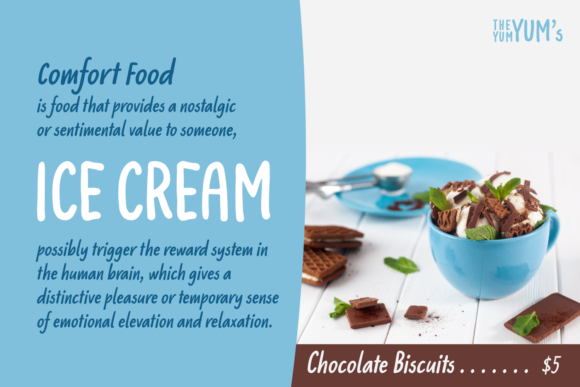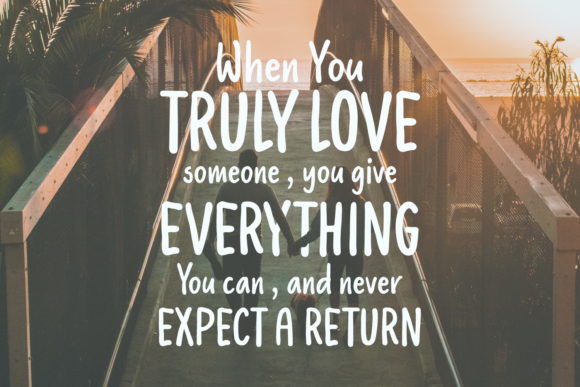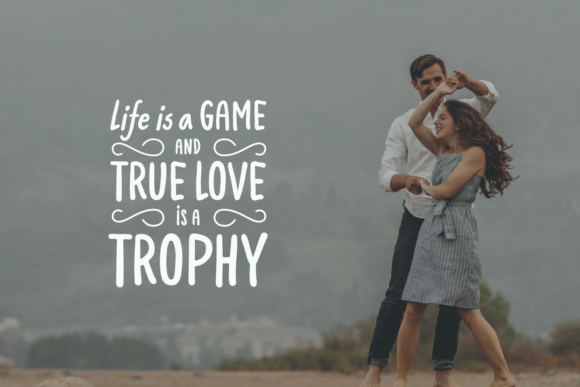
Introduction to Give Me a Hand Font
As a designer, have you ever found yourself stuck in a creative rut, struggling to find the perfect font to elevate your project? I’m sure we’ve all been there. But what if I told you that I’ve recently stumbled upon a game-changing script font that’s sure to breathe new life into your next design? Say hello to the exquisite Give Me a Hand Font – a true design treasure that’s about to become your new go-to companion.
This stunning font is more than just a pretty face; it’s a masterfully crafted design resource that effortlessly blends classic calligraphic influences with a fresh, contemporary feel. Whether you’re working on a high-quality branding project or a free download template, Give Me a Hand Font is the perfect addition to take your creative project to the next level.
With its transparent background and versatility, this font is an absolute must-have for designers looking to add a touch of sophistication to their designs. So, what are you waiting for? Get ready to fall in love with Give Me a Hand Font and discover a whole new world of design possibilities!
Key Features of Give Me a Hand Font
• High-quality design resource ideal for creative projects, including logos, graphics, and branding materials.
• Features a unique and playful design, making it perfect for adding a touch of whimsy to your creative project.
Honest Review: Give Me a Hand Font
I recently stumbled upon the Give Me a Hand Font, a free download that’s been making waves in the design community. As a designer, I was excited to dive in and see what it’s all about.
Here’s the good stuff: ✨ The Give Me a Hand Font is a high-quality design resource that’s perfect for any creative project. It’s clean, modern, and features a transparent background that makes it super versatile. I love that it’s free to download, making it an awesome option for designers on a budget.
Some of the features that stood out to me include:
• Over 100 unique glyphs to choose from
• Support for multiple languages
• Customizable font sizes and styles
Overall, I’d say the Give Me a Hand Font is a solid addition to any designer’s toolkit. It’s a great option for personal projects or non-commercial use, and the free download is a major plus. Just be aware of the potential limitations before diving in.
Give Me a Hand Font
The Give Me a Hand Font is suitable for various projects, including:
Infographics, posters, and social media graphics.
Business cards, resumes, and marketing materials.
Web design and e-commerce projects.